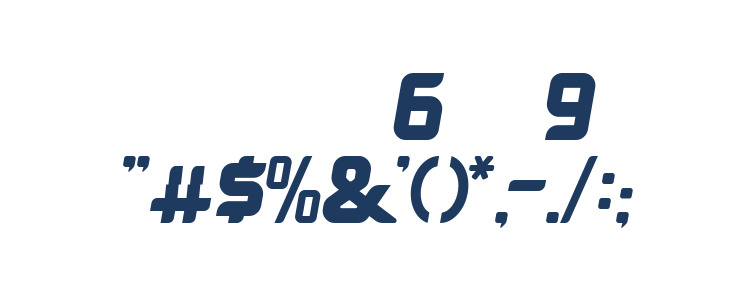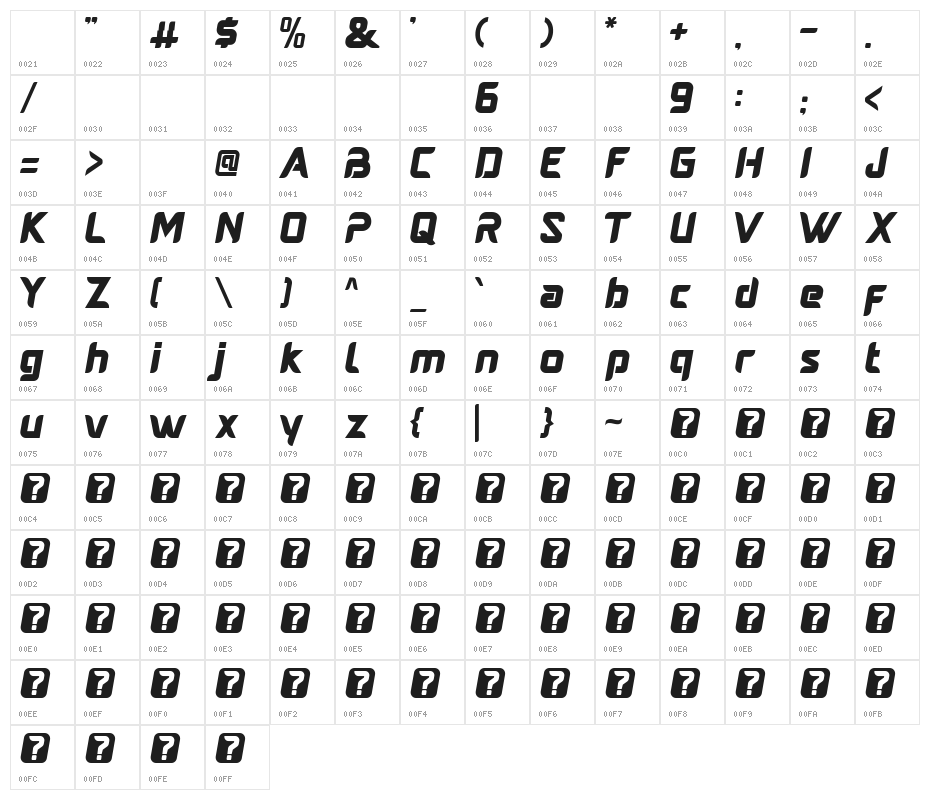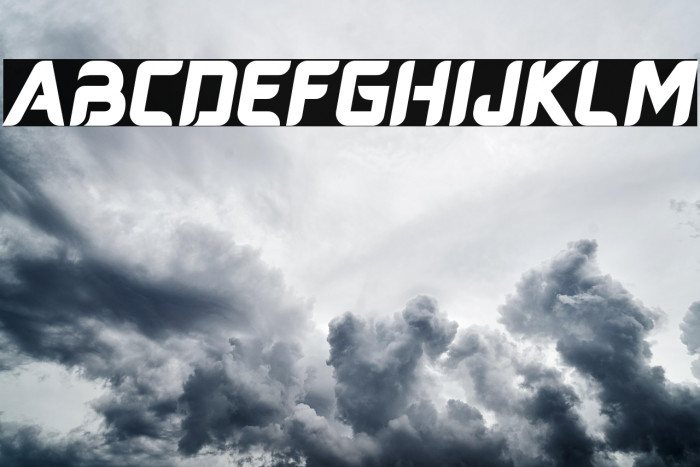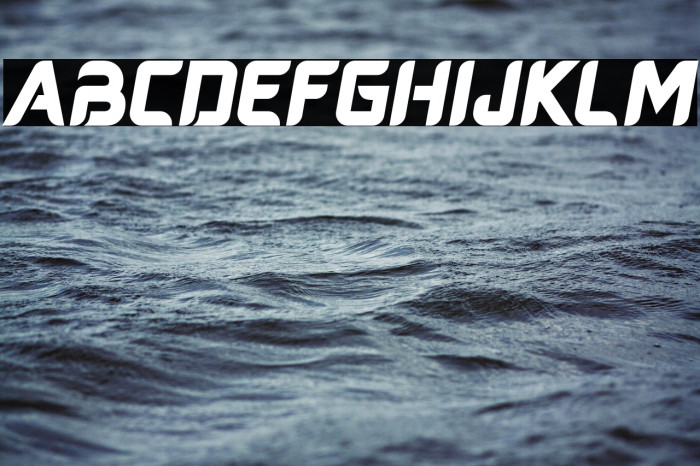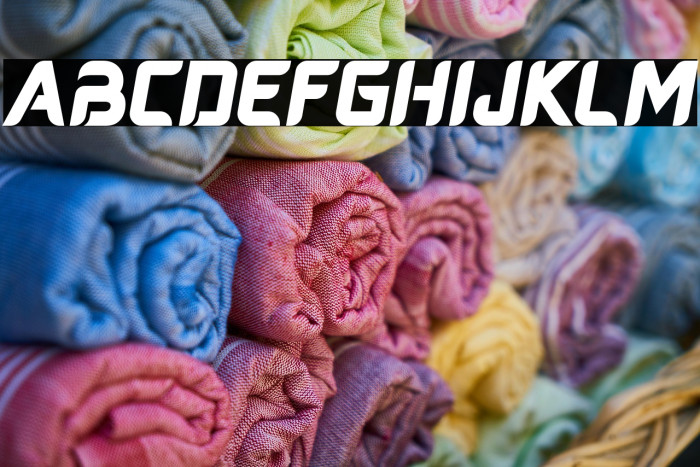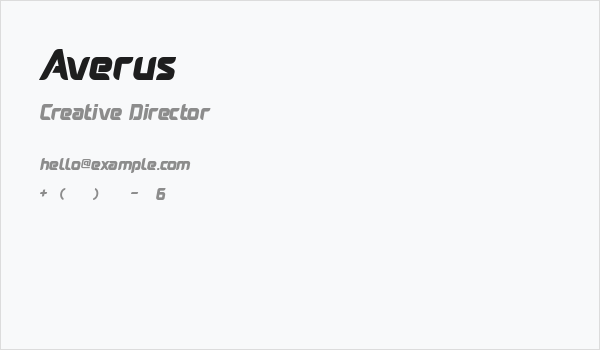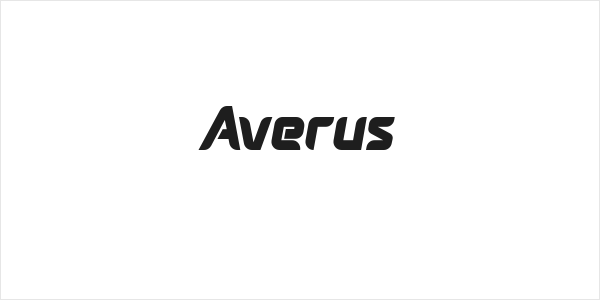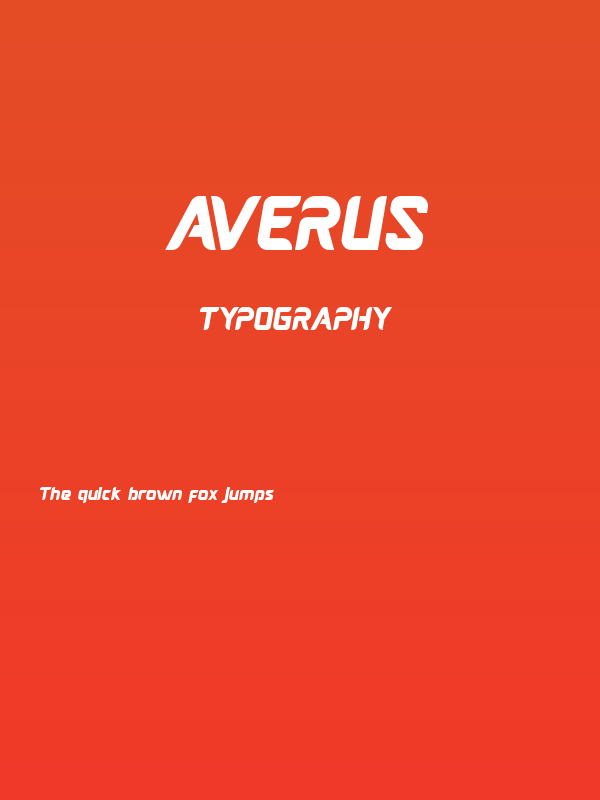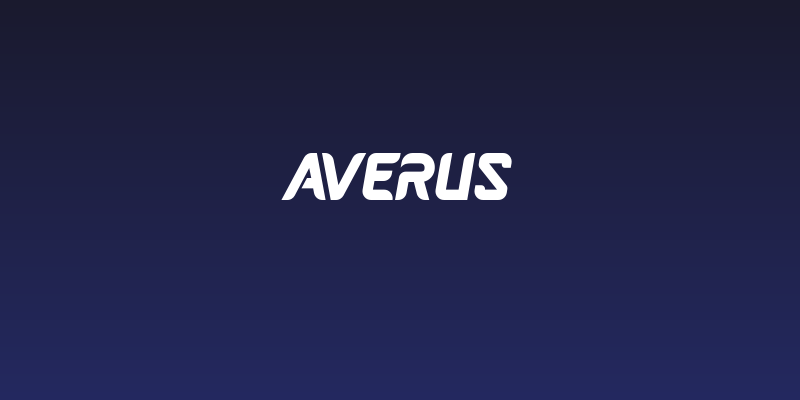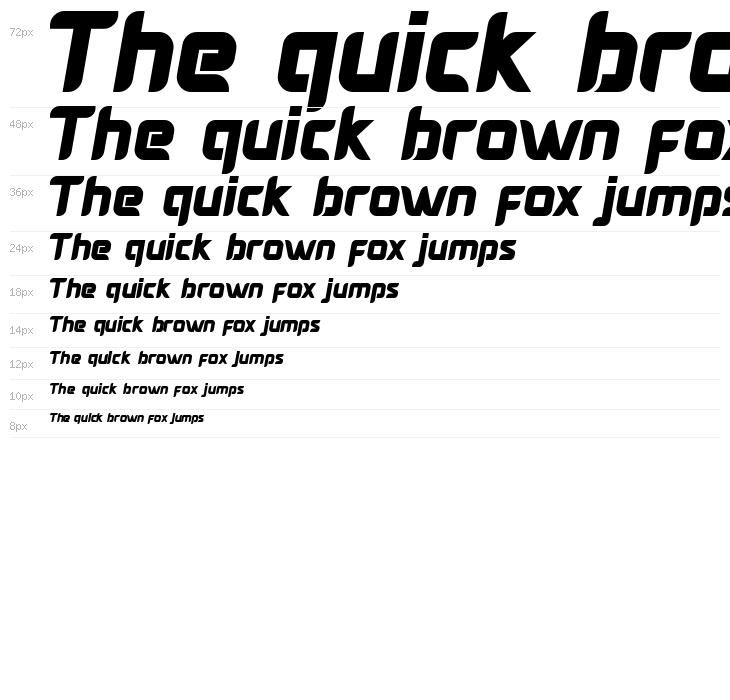
Averus Font
Averus Description
This font features a bold and dynamic design with a modern, futuristic aesthetic. The characters are slightly italicized, giving them a sense of motion and energy. The strokes are thick and consistent, providing a strong visual impact. The uppercase and lowercase letters maintain a uniform style, with rounded edges and a slight slant that enhances readability. The numbers and special characters follow the same design principles, ensuring cohesion across all elements. This font is ideal for projects that require a bold and contemporary look.
| Proposed Projects | Ideal for branding, sports team logos, technology-related designs, and modern advertising campaigns. |